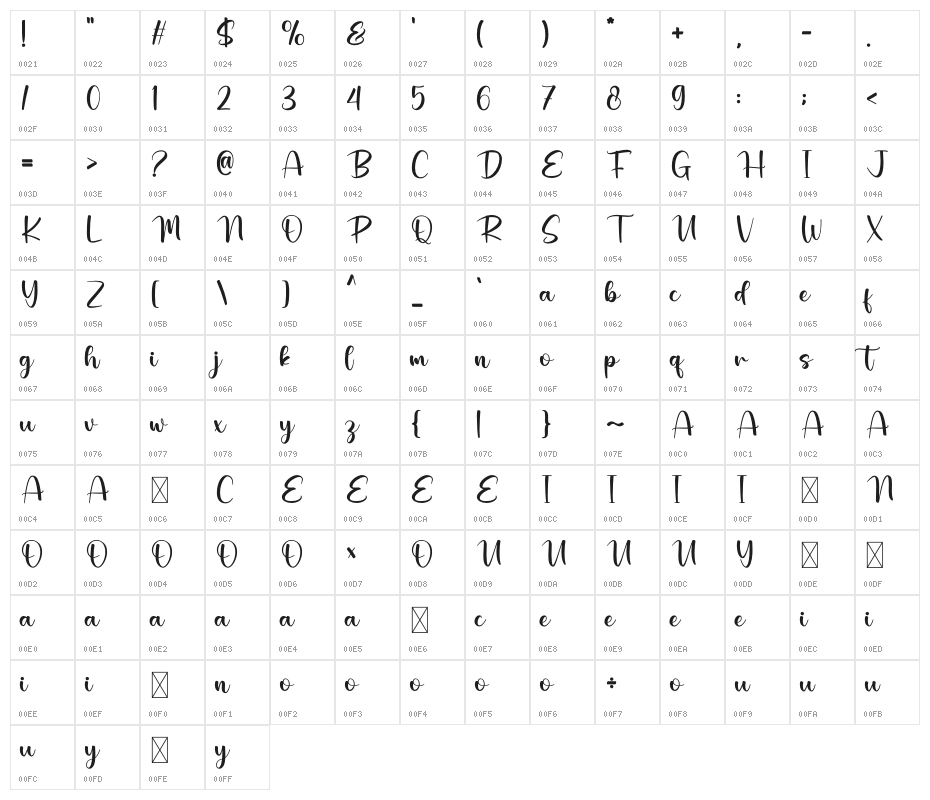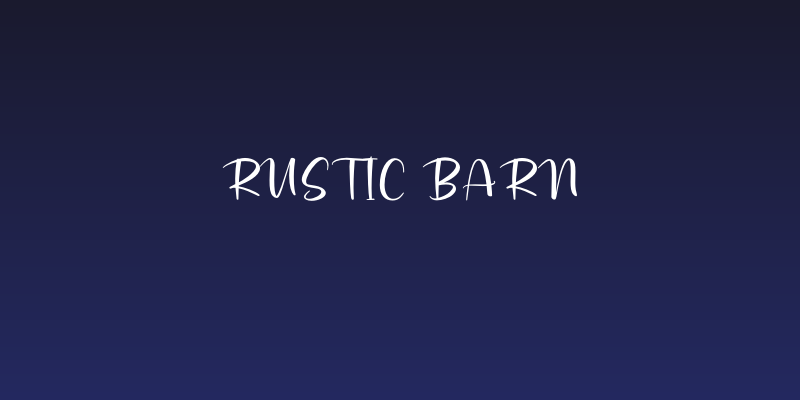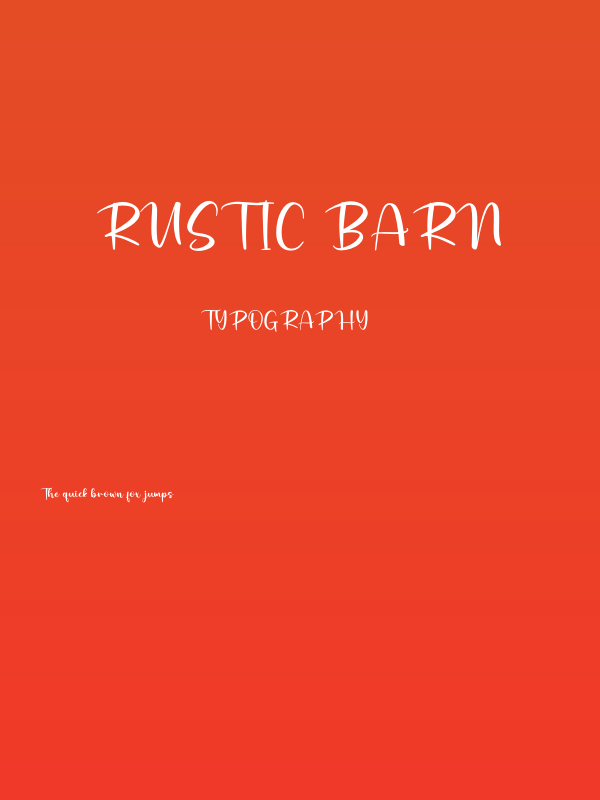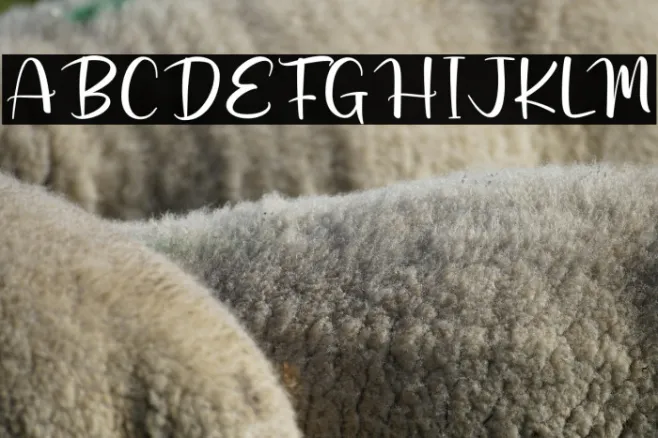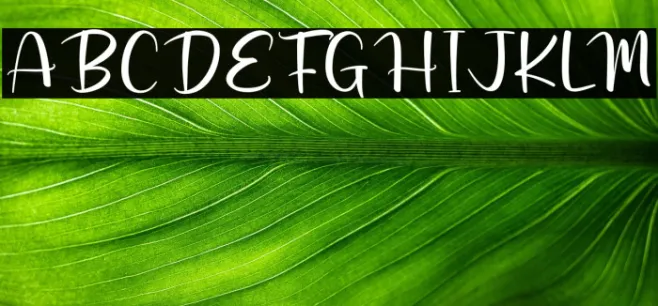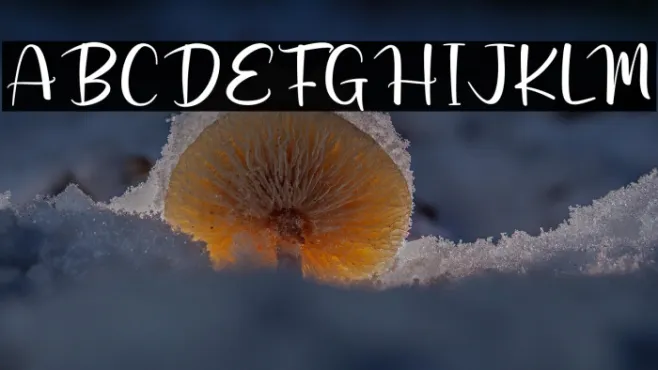
Rustic Barn Font
Rustic Barn Description
This font exudes a charming, rustic appeal with its handwritten style, characterized by flowing, cursive letters that maintain a casual yet elegant appearance. The uppercase letters are bold and slightly irregular, adding to the handcrafted feel, while the lowercase letters are more fluid and connected, enhancing the script-like quality. The numerals are clear and consistent, matching the overall aesthetic. Special characters are creatively integrated, maintaining the font's cohesive look. This font is perfect for projects that require a personal touch, such as invitations, greeting cards, or branding for artisanal products.
| Overall Style | Rustic, Handcrafted |
| Proposed Projects | Ideal for wedding invitations, greeting cards, artisanal product branding, and rustic-themed designs. |